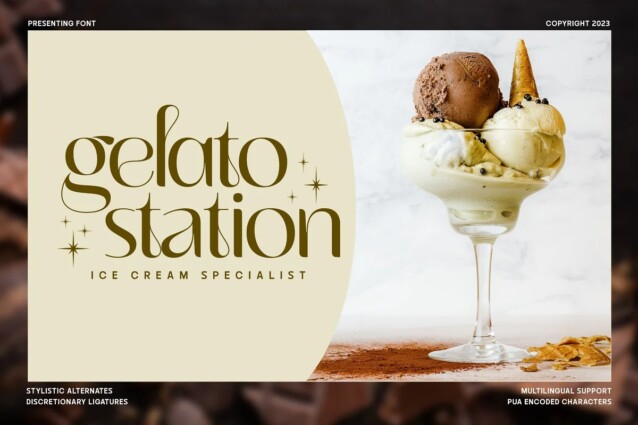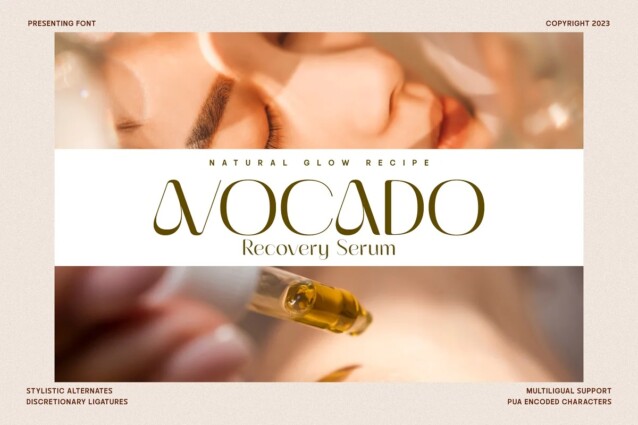
Lovan Font
Lovan Font is a collection of modern, feminine, beautiful and classy characters, giving you a unique look for any branding or design need. Equipped with a choice of Alternative Characters and Discretionary Ligatures, all of which are PUA Encoded. Lovan will be a versatile font because it can be used as a Display Font and is still good for writing text.